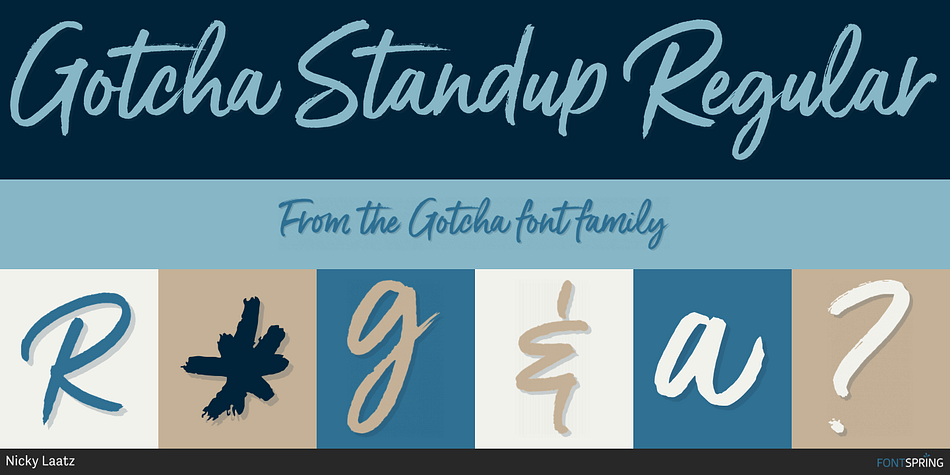
Gotcha Standup Regular
Designed by Nicky Laatz, Gotcha is a modern calligraphy, script and dingbat font family. This typeface has three styles and was published by Nicky Laatz.
Say hello to GOTCHA! A versatile new marker font with bounce and vigor and a a super-sexy-casual vibe!
The Gotcha fonts are incredibly versatile , from street urban, to styled fashionista, to hearty food branding - whatever the weather, Gotcha! has you covered :)
Gotcha! comes with a set of alternate upper and lower case letters, and a second set of lowercase letters - this way you can write one word in a million different ways - and keep things ultra natural looking. A comprehensive set of double letter ligatures are also included.
Gotcha! also comes with an “Extras Font” which include textured swashes and splatters/grit to add some pizazz to your design.
Foundry Nicky Laatz
Styles Modern Calligraphy, Script
Designer Nicky Laatz